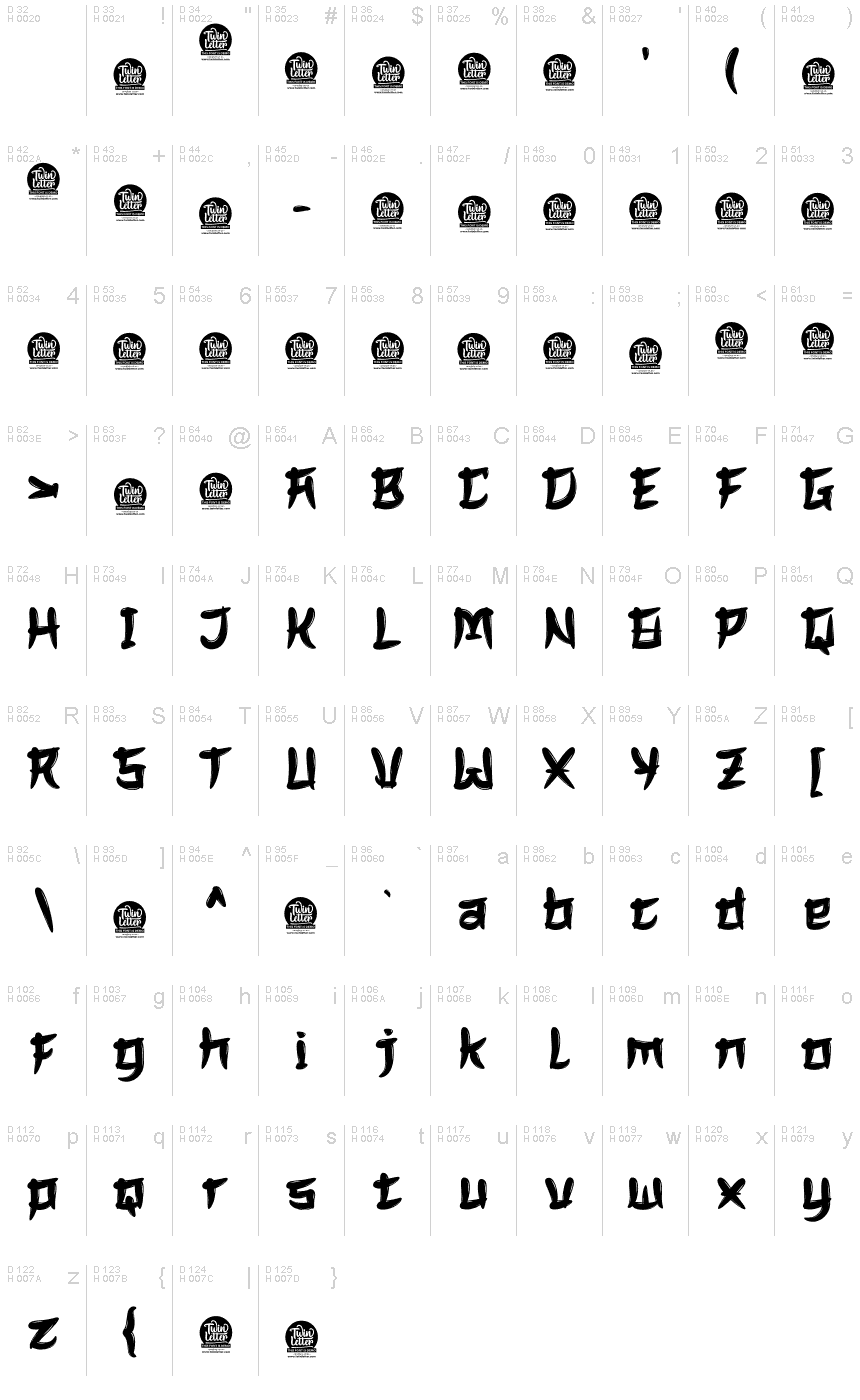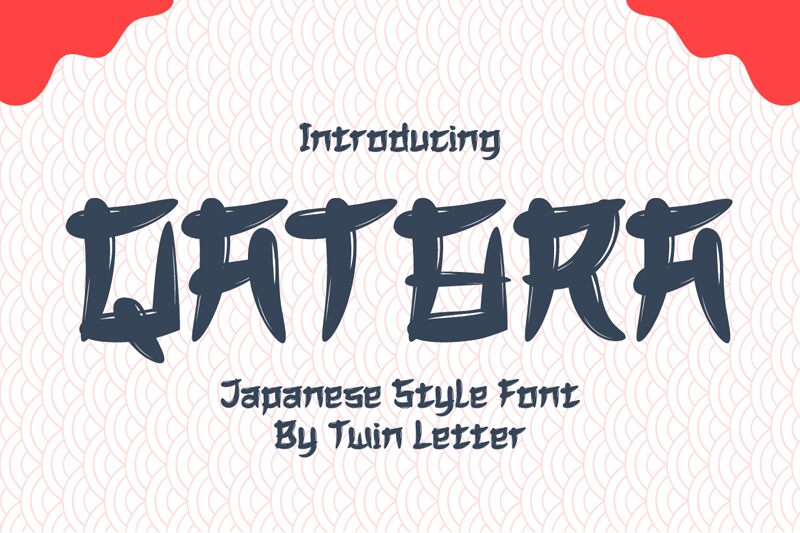
QATORA by twinletter is a stunning Japanese brush font that brings a bold and dynamic energy to any project. Its semi-expanded width adds a unique sense of balance and harmony to your typography, making it ideal for branding, packaging, and advertising. The bold weight of this typeface gives it a powerful presence that demands attention, perfect for headlines, titles, and logos. QATORA's Japanese brush style also makes it an excellent choice for design projects that require an artistic touch or want to evoke a sense of traditional Japanese culture. Add QATORA to your font collection today and elevate your designs with its expressive beauty!